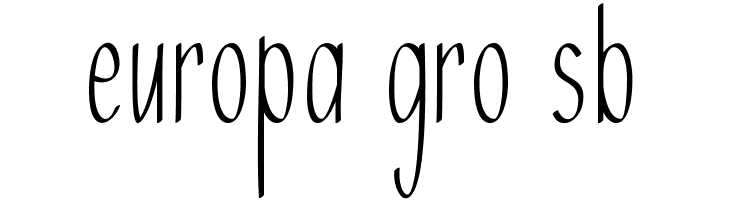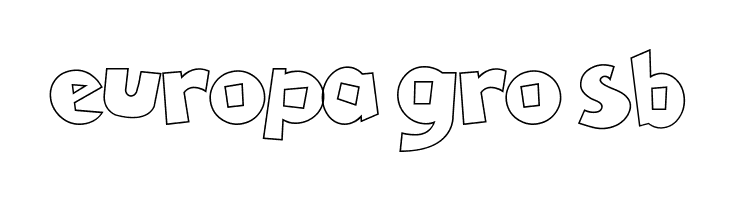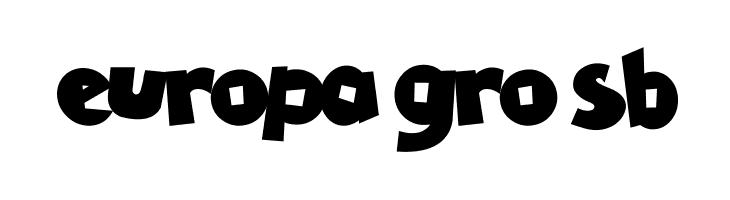
A whimsical font featuring cartoon swimmer figures as characters.
A bold serif font with a classic yet modern aesthetic.
A playful, handwritten-style font with bold, irregular characters.
A digital, segmented font with a futuristic, tech-inspired design.
A bold, italicized digital-style font with segmented, geometric characters.
A digital, segmented font with an italic slant, perfect for tech-inspired designs.
A digital, futuristic font with angular, geometric shapes.
A bold, italicized font with a geometric and modern design.
A bold, geometric font with a strong, industrial aesthetic.
A bold, decorative font with intricate details and strong serifs.
A bold, decorative font with intricate, layered designs and a modern flair.
A playful and whimsical script font with smooth, flowing curves and elegant loops.
A playful, handwritten font with tall, narrow letters and a whimsical style.
A dynamic, edgy font with sharp, angular strokes and a calligraphic flair.
A decorative and artistic font with intricate illustrations and vintage tattoo art elements.
A bold, outlined display font with a comic book style.
A bold, playful font with a hand-drawn, tropical vibe.
A bold, playful font with a tropical, hand-drawn style.
A playful, bold outline font with a whimsical and dynamic style.
A bold, grungy, and italicized font with a distressed texture.
A bold, angular font with a geometric and slightly italicized style.